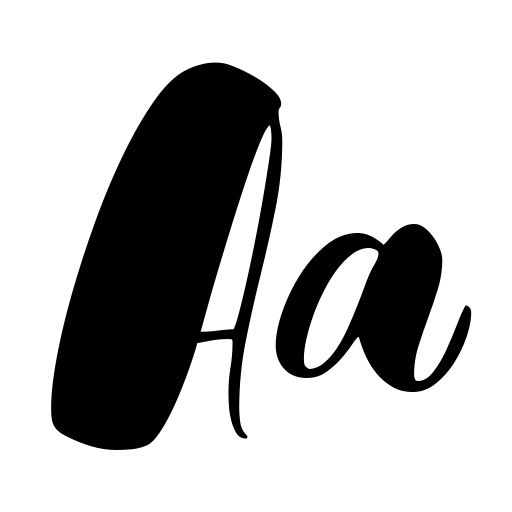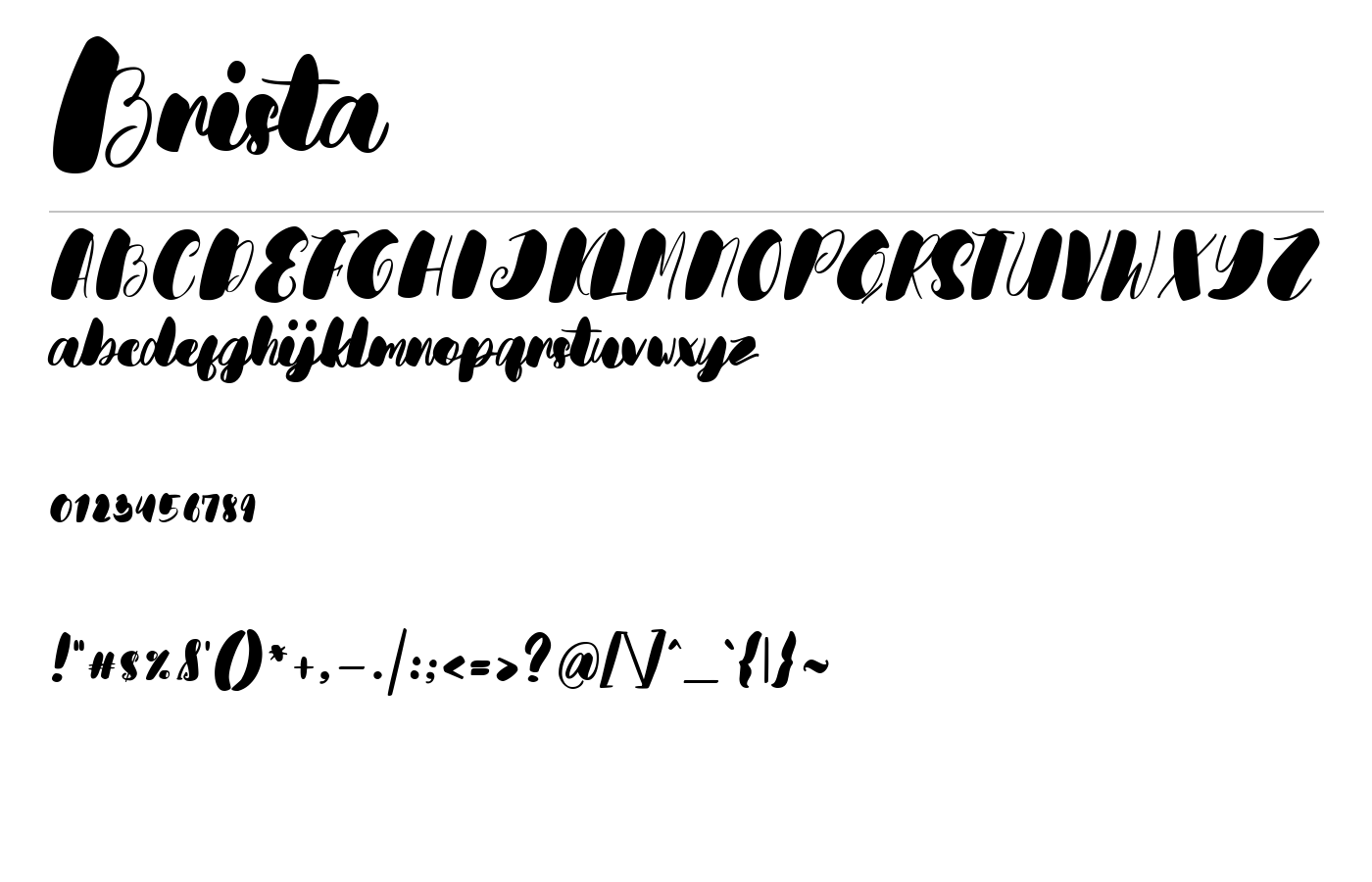
Brista is a bold, modern script font featuring thick, dramatic strokes and playful, flowing curves that give it a lively and stylish personality. Its high contrast between thick and thin lines, along with unique letter shapes and swashes, make it perfect for eye-catching headlines, branding, and packaging where a vibrant, handcrafted feel is desired. This font works well in fashion, luxury, and creative contexts that want to convey elegance with a touch of fun.